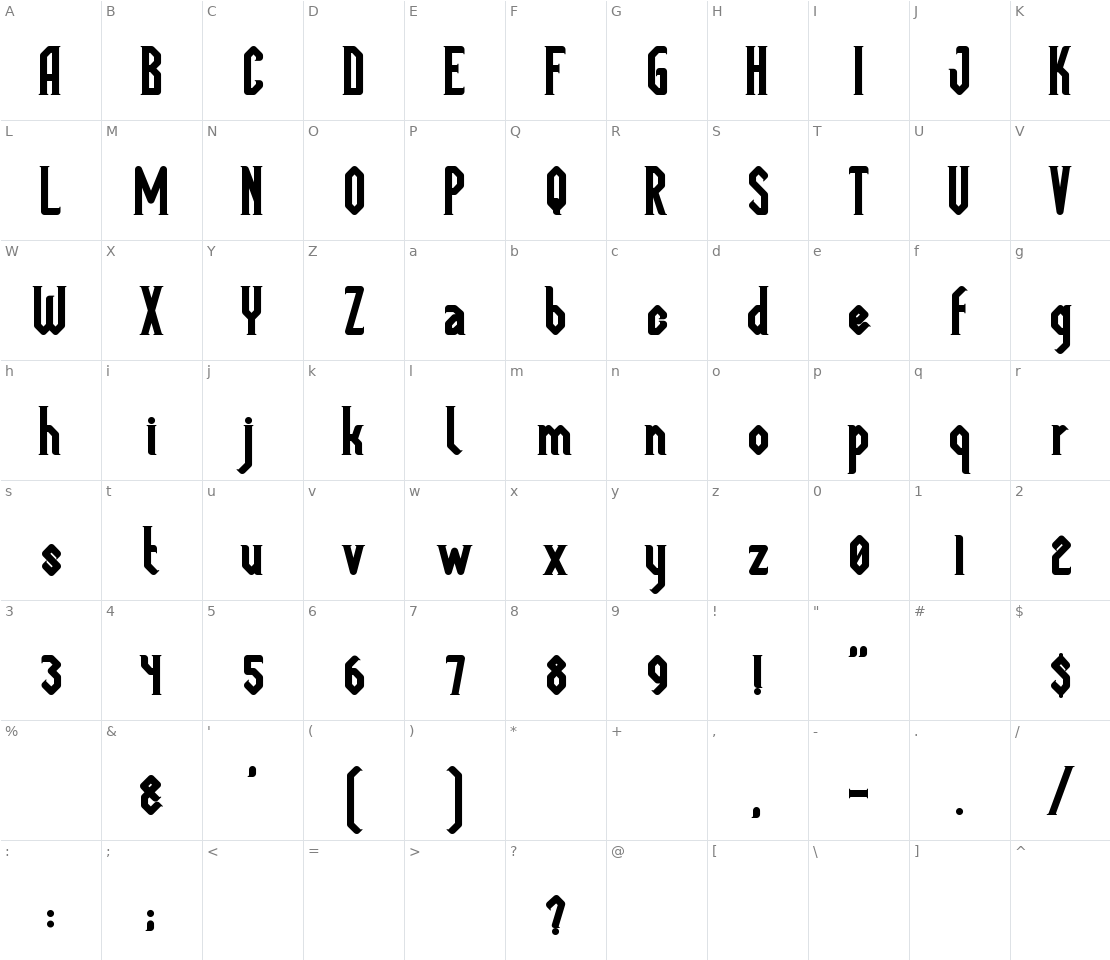
Megapolis
Megapolis is a bold, condensed display face from Nrey with sharp angular letterforms that echo the hard lines and vertical density of city architecture. The heavy weight and tight proportions give it a distinctly urban, structural presence, built for headlines, posters, and branding where you want something that feels like concrete and glass. It reads best at large sizes where its architectural geometry can do the talking.